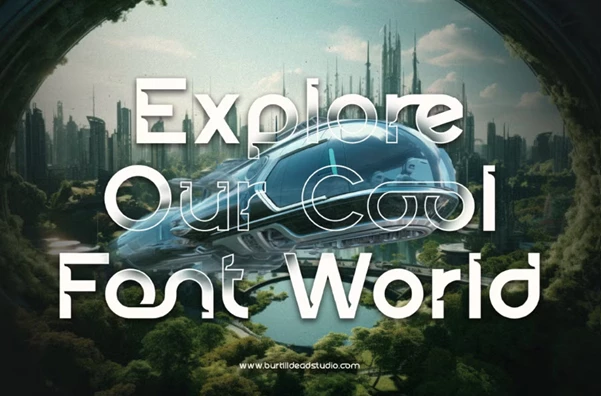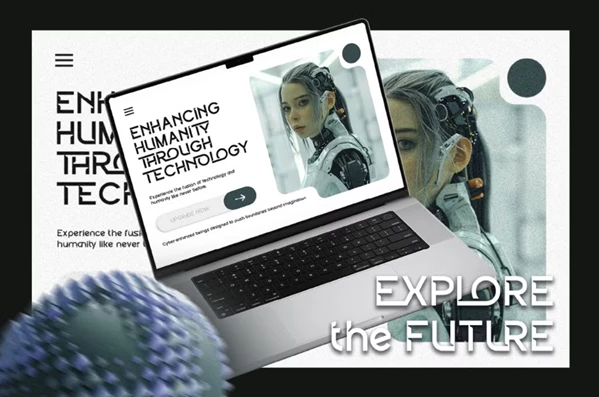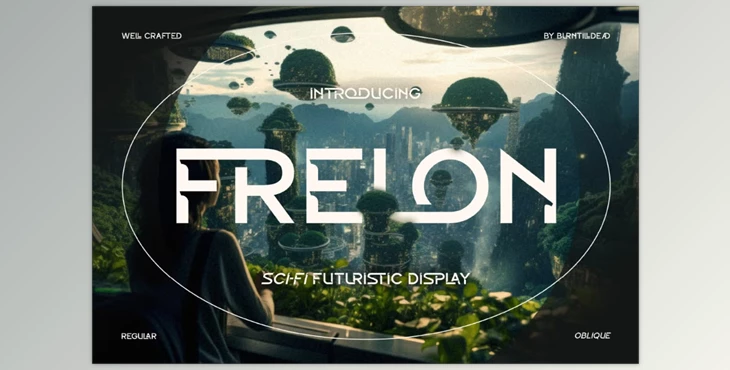
Frelon Font:
Frelon is a typeface that fuses elements of the future with modernity. It is crafted with the bold and daring designer in mind and features two styles, Regular and Oblique. While the Regular style is steady and sturdy, the Oblique style is ever so slightly swift and energetic.
From branding to technology, gaming, sci-fi, and even cyberpunk, Frelon is ideal for anything and everything as it adds a dash of modernity to every creative endeavor. Design a logo and user interface or create stunning visuals; Frelon will surely add its stamp of bold modernism and aesthetic to your work.